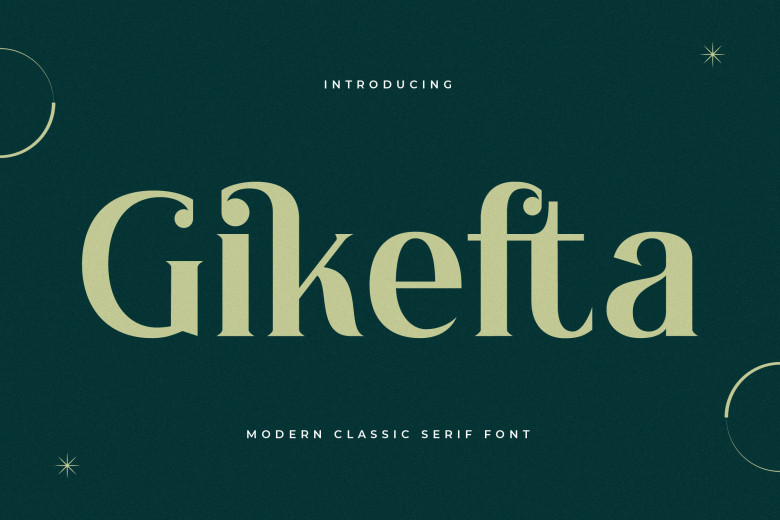
Gikefta Font
Gikefta Modern Classic Serif Font from Letterena is ideal for projects including logos, branding and homeware designs packaging for products, mugs posters quotes T-shirts, shopping bags, book covers, name cards, greeting cards, invitation cards, labels, watermark, photography, special  special events and many other beautiful and elegant projects that require luxurious serif styling.
Gikefta Serif Font